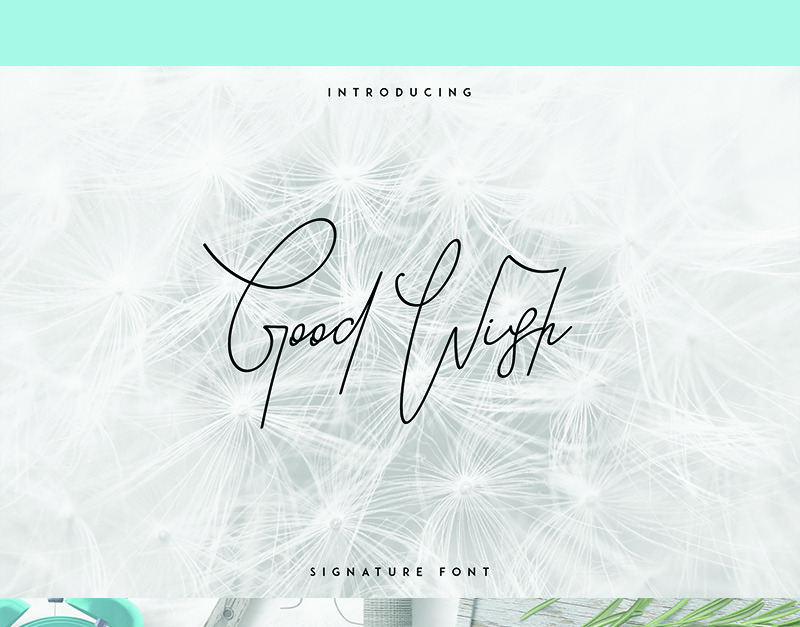
Good Wish Font
Good Wish is signature font with regular and italic style and multilingual support. It's a very versatile font that works great in large and small sizes.
Good Wish is perfect for branding projects, home-ware designs, product packaging, wedding invitations, magazine headers - or simply as a stylish text overlay to any background image.
- Regular
- Italic
- Uppercase,lowercase,numeral,punctuation & Symbol
- Multilingual